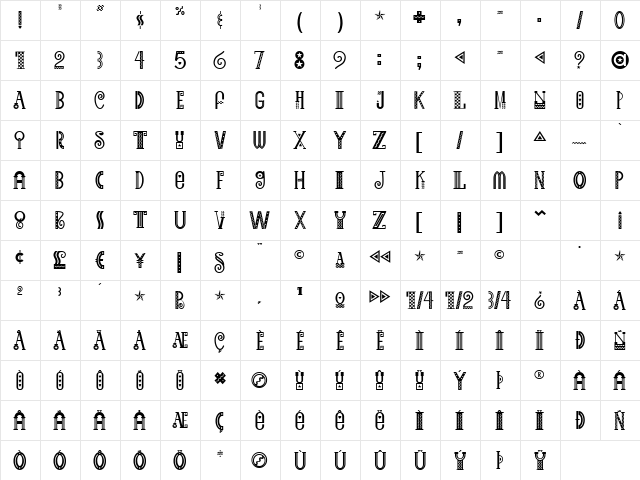
Bric A Brac BV Regular
Design Context for Bric A Brac BV Typeface
Bric A Brac BV is a composed and adaptable typeface that performs quietly and consistently across a wide range of design contexts.